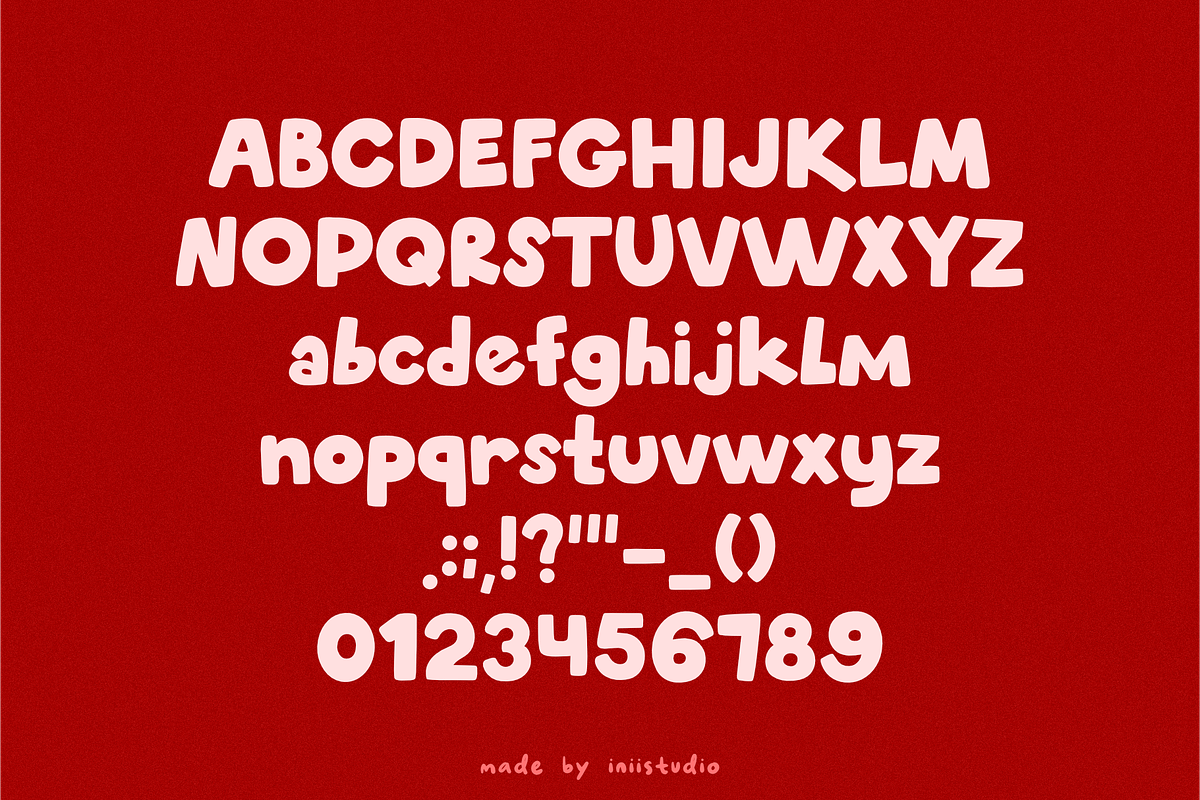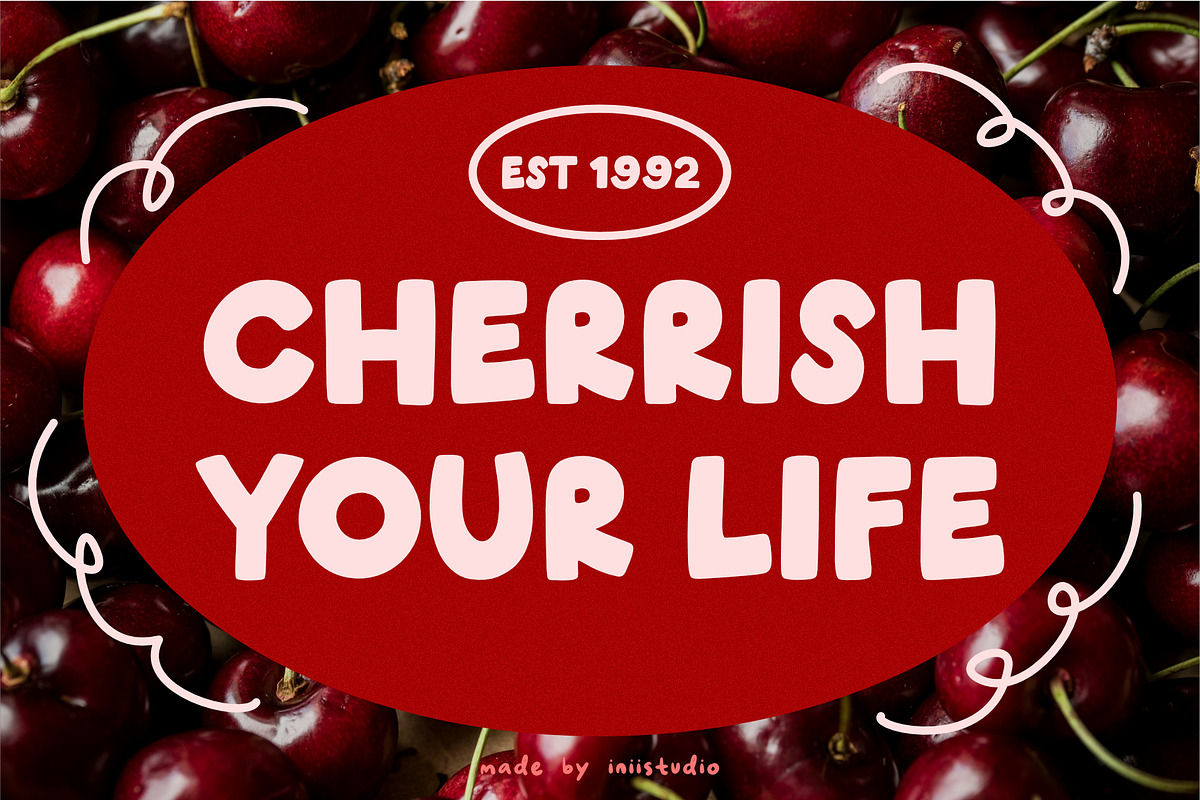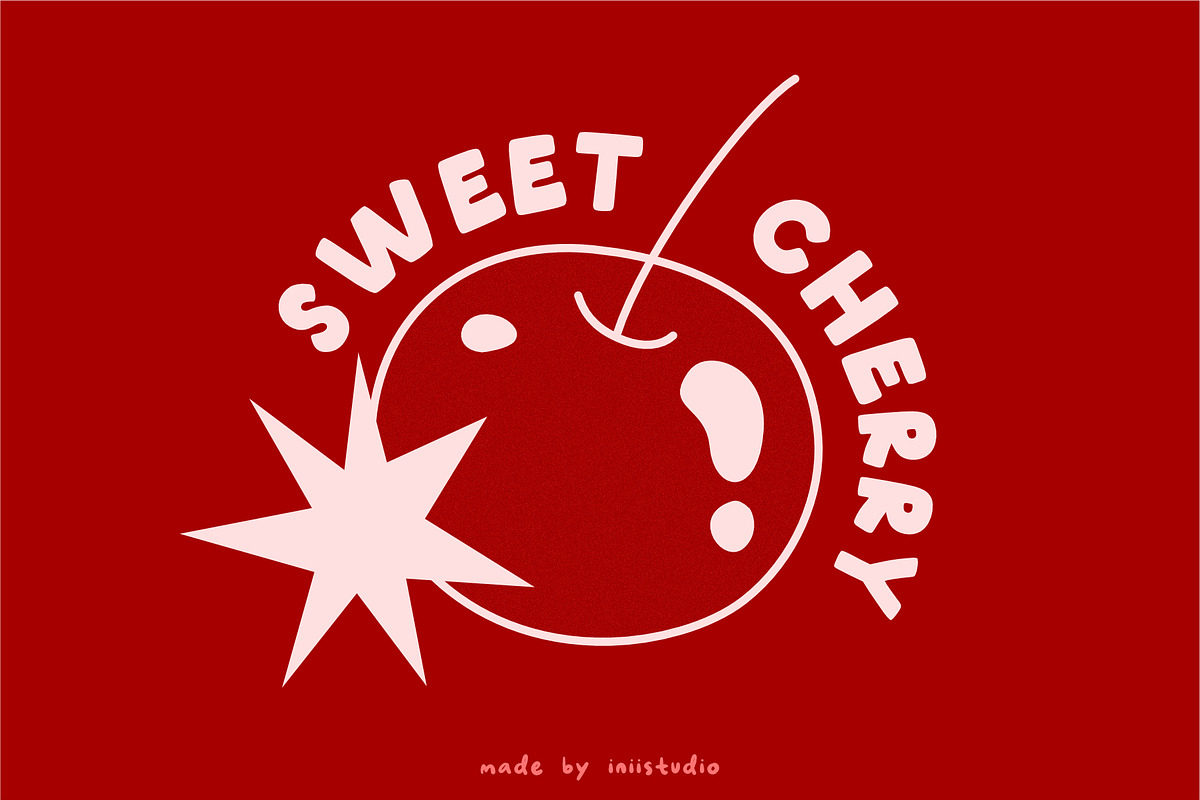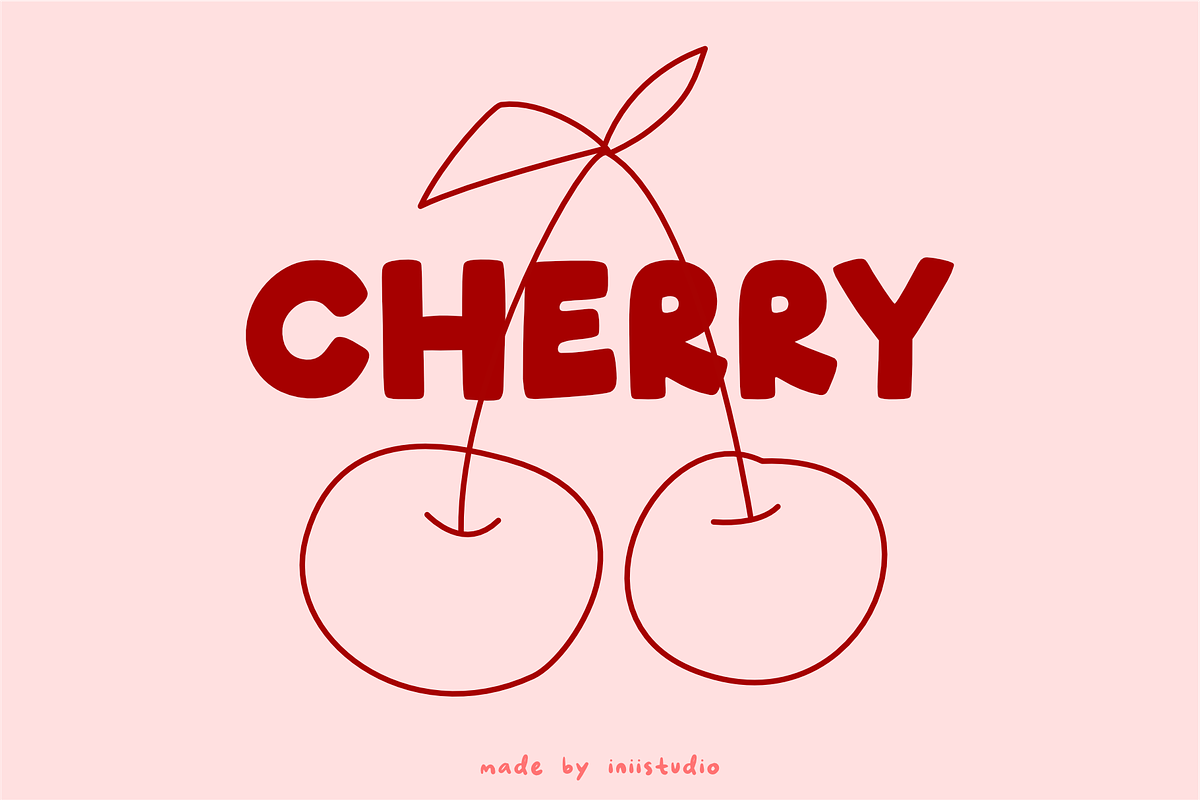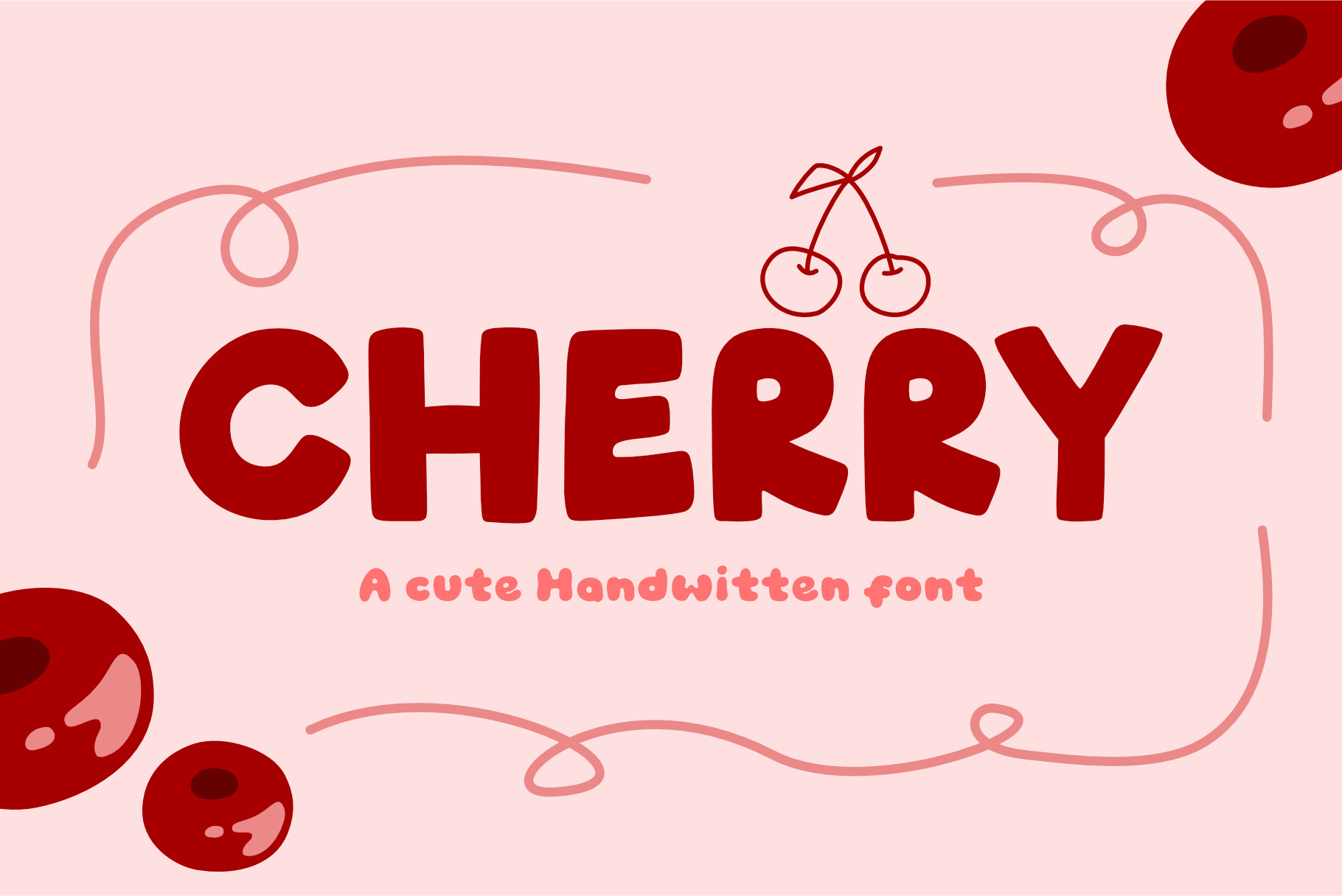
Cherry - cute handwritten font
Introducing Cherry Font – a playful and vibrant typeface that brings a touch of sweetness to your designs! Perfect for those looking to add a fun, modern flair, Cherry Font features smooth curves and a bold, yet friendly character set. Whether you're designing for branding, posters, or greeting cards, this font exudes charm and personality, making it a great choice for any creative project that needs a joyful and fresh look.